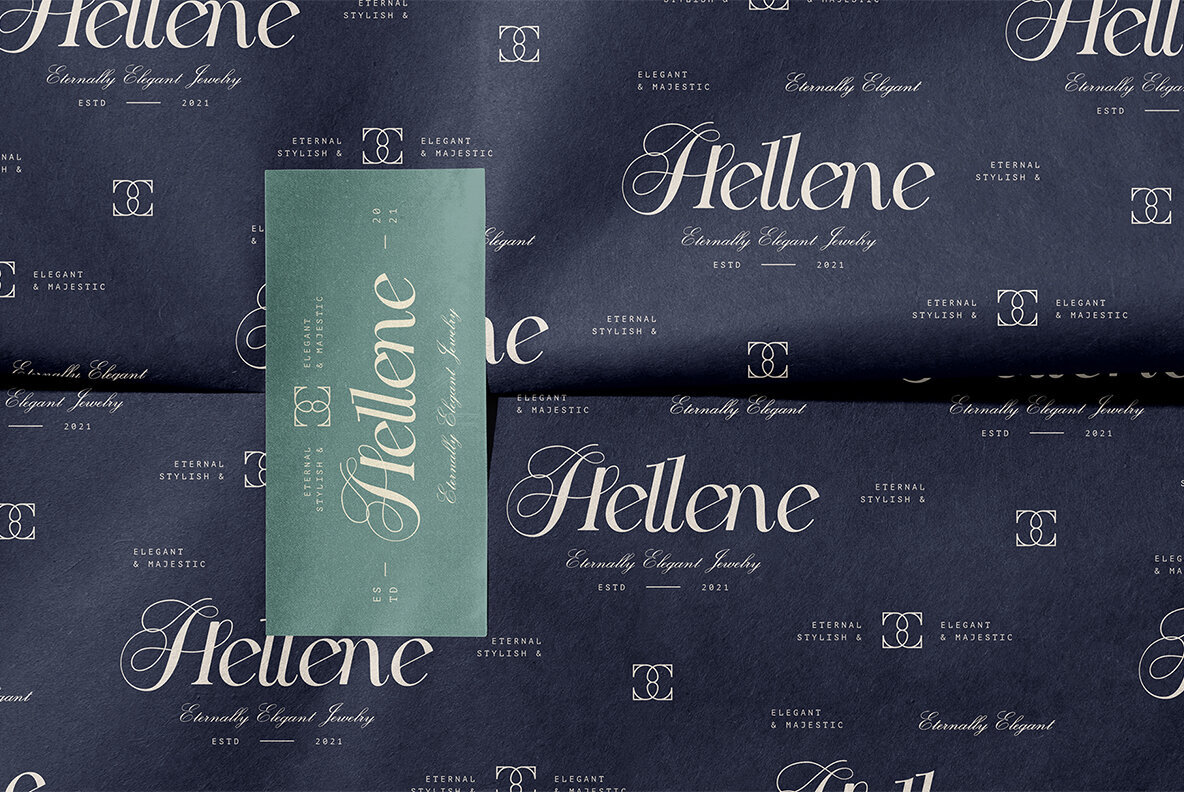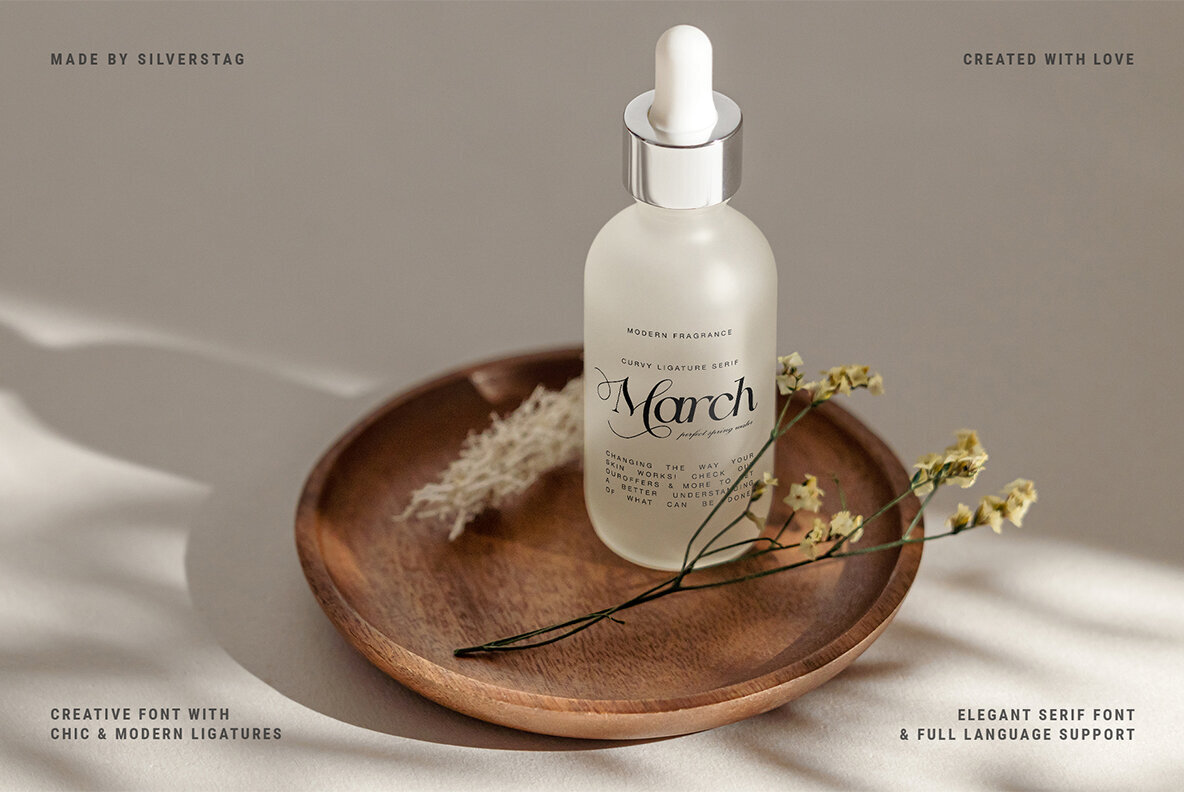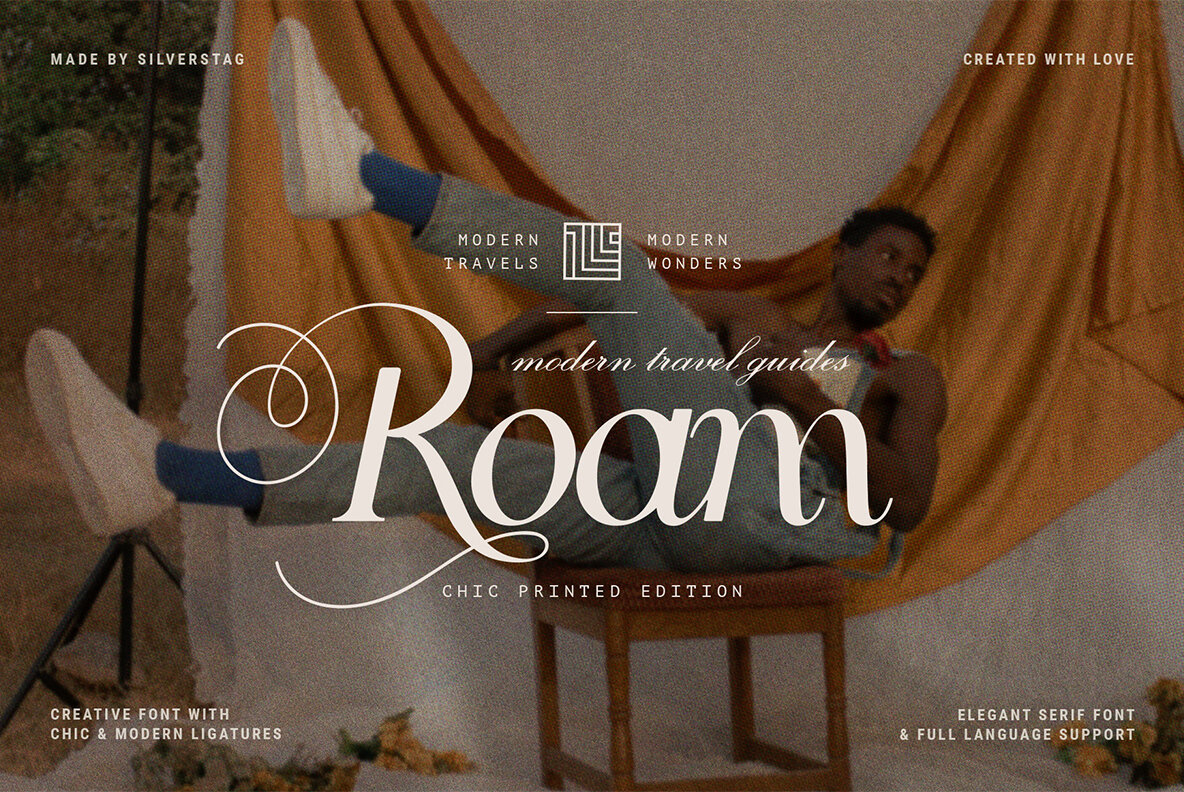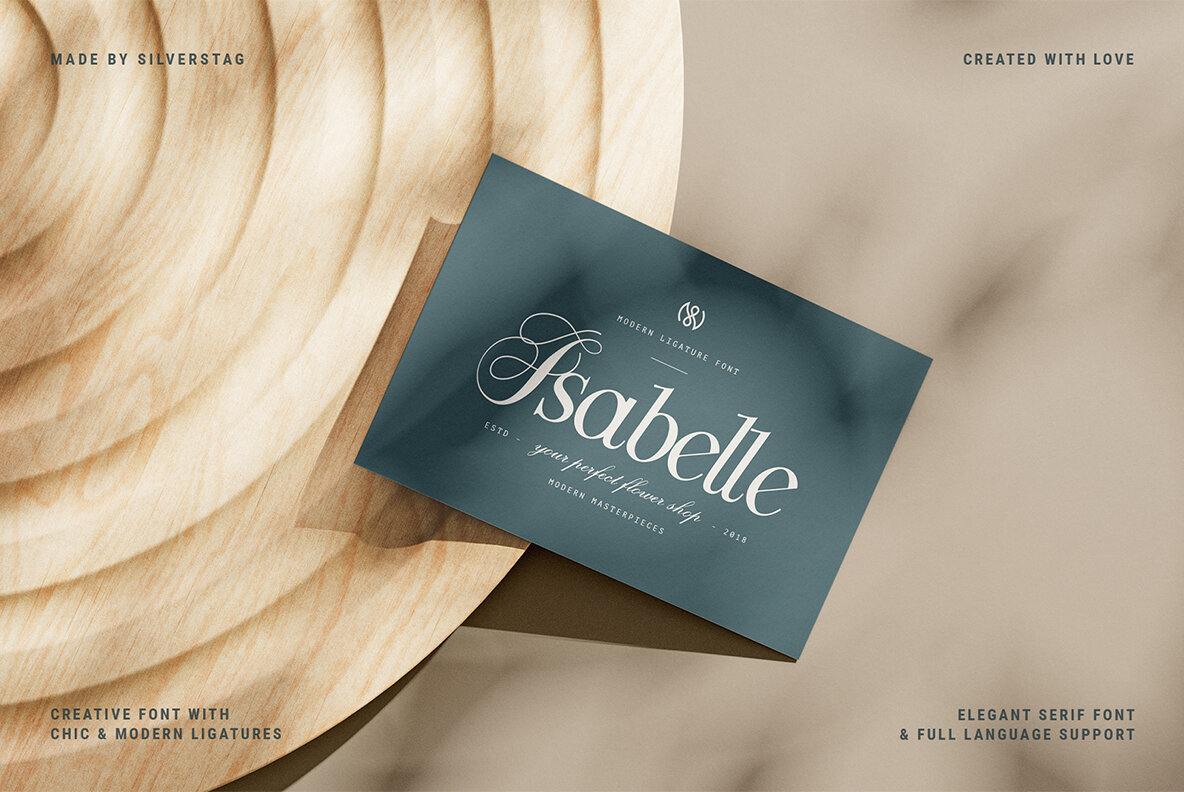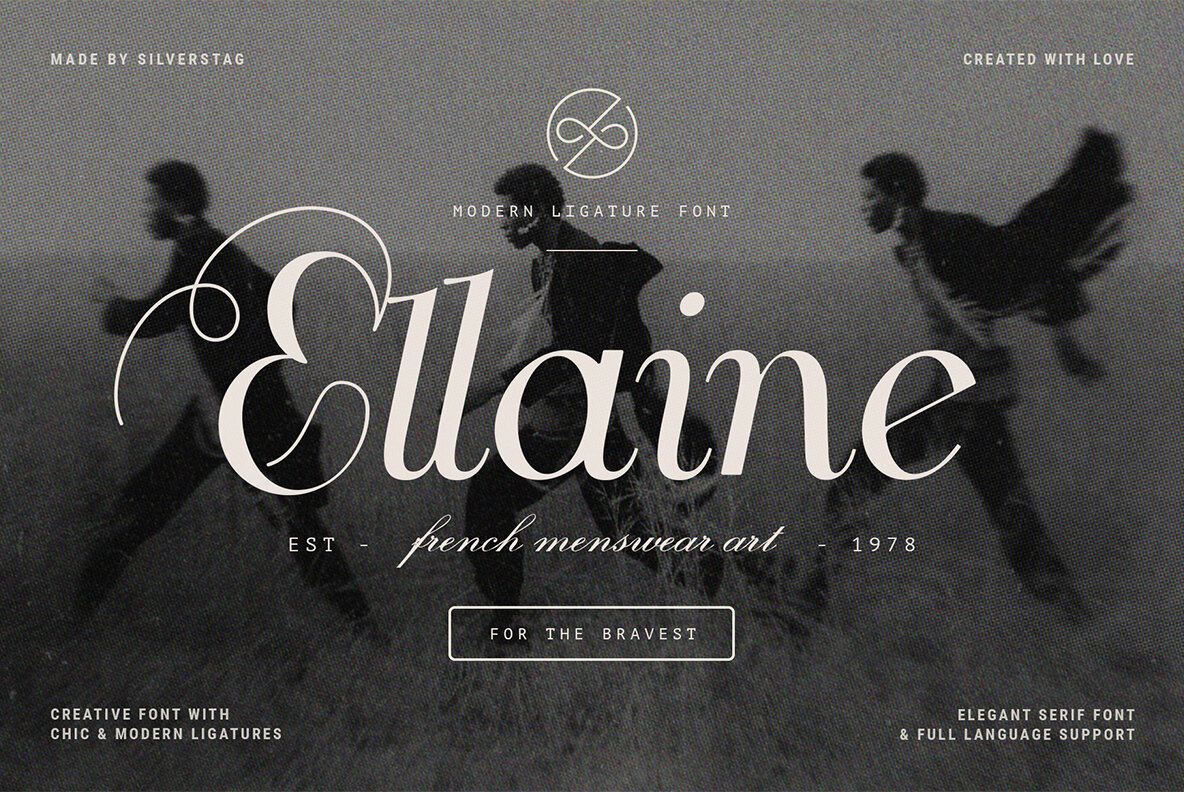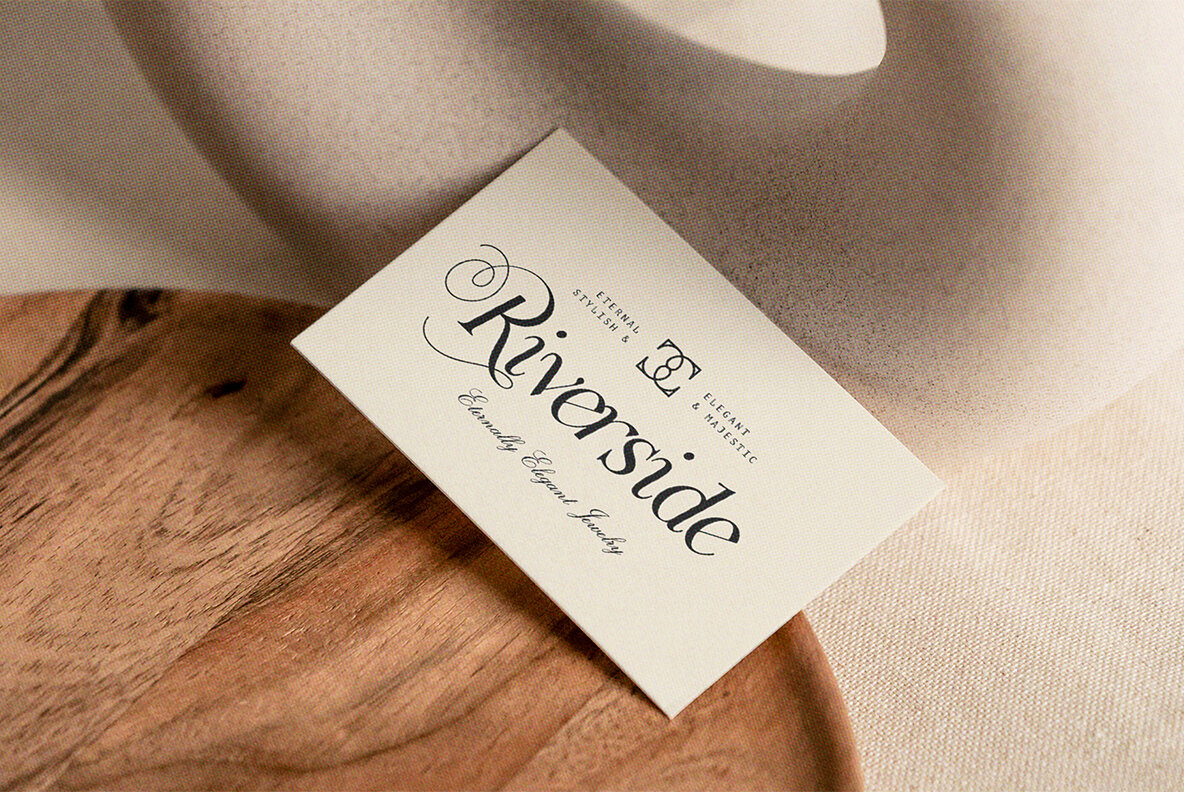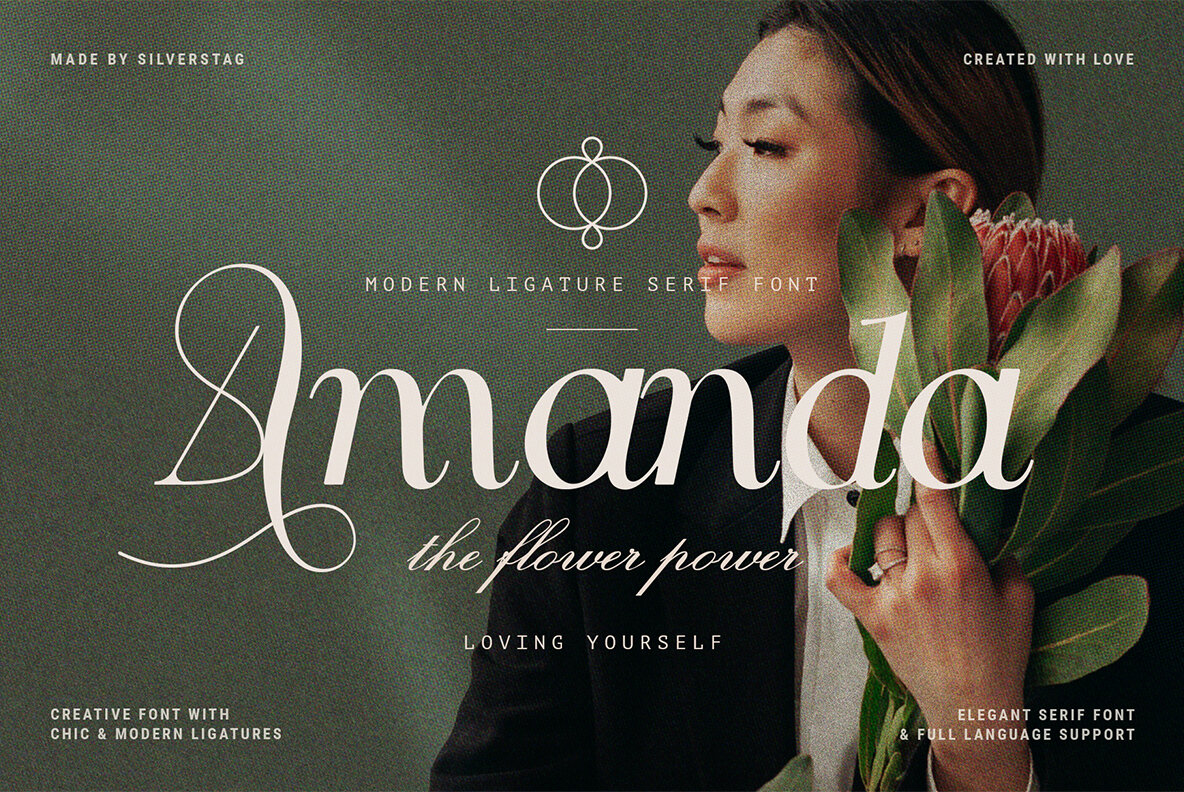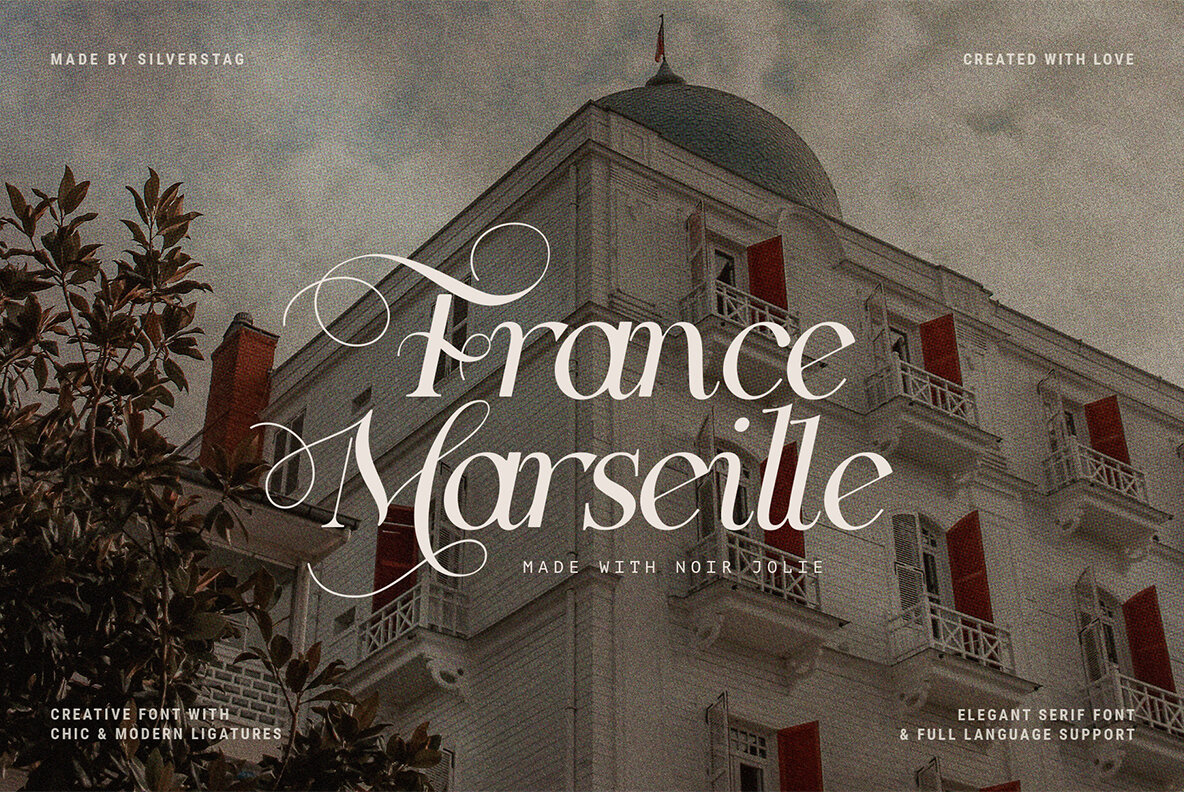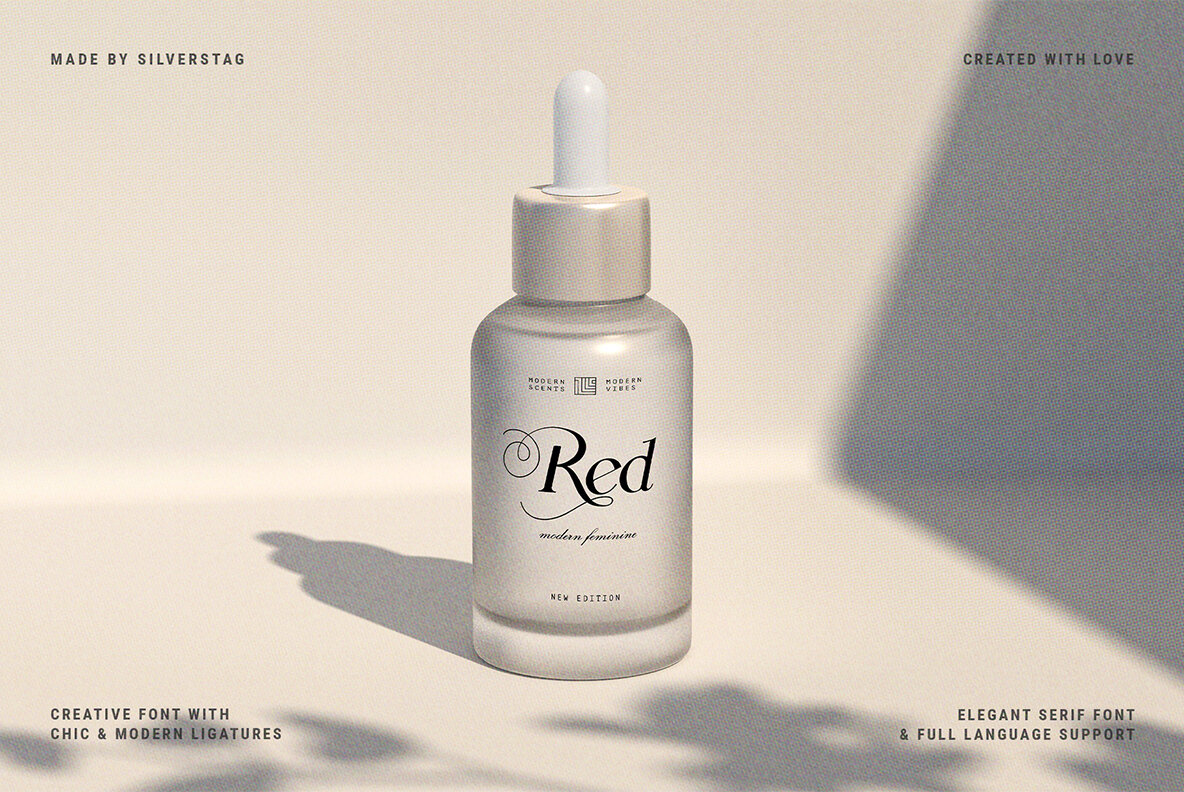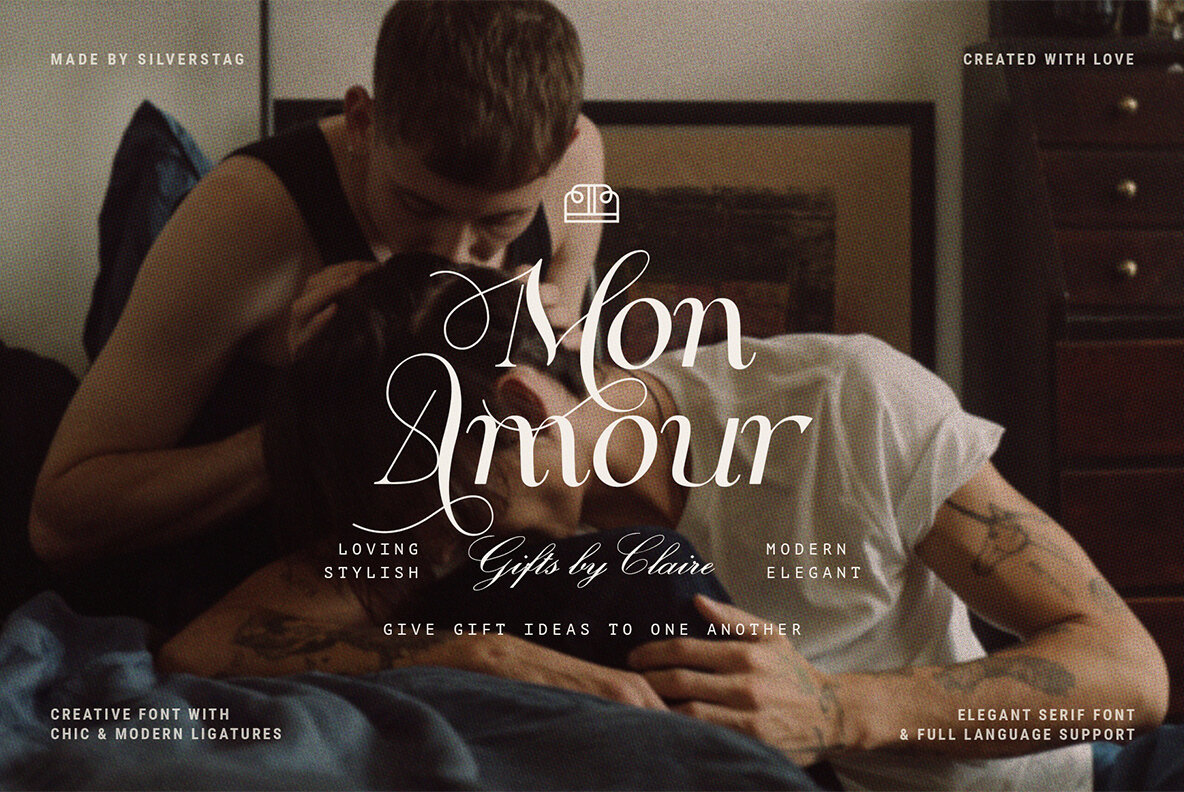
Noir Jolie Font
expand_font Noir Jolie Font Introducing Noir Jolie, a modern ligature serif font with a perfect blend of curvy and straight letters, designed to elevate your creative proje... SKU T18081 Olds,Weddings,Cools,Vintages,Retros,Fashions,Logos,Cosmetics,Gold,Yellow,Soft,Round,Elegant,Classy,Glamor,Luxury,Star,Magical,Magic,Feminine,Fashion,Headline,Bold Serif,Modern Serif,Vintage Serif,Beautiful,Cooking,Logo,Minimalist,Logotype,Decorative,Display,Elegantss,Art Decos,Retro,Moderns,Romans,Feminine,Brandings,Masculine,Popular,Font Pairing Explore Exceptional Fonts for Digital and Traditional Media Fontpath offers a large variety of fonts for every designer, all at affordable prices and in multiple formats. Browse our best in class fonts today for all your creative needs, you can find everything you need right here at our site! Fonts,sans,sans serif,retro,script,decorative,title,FontPath 20140312040223 Fontpath offers 200,000+ of the most professional fonts found online, start downloading today! Real-Time Font Discovery at Fontpath
Noir Jolie Font